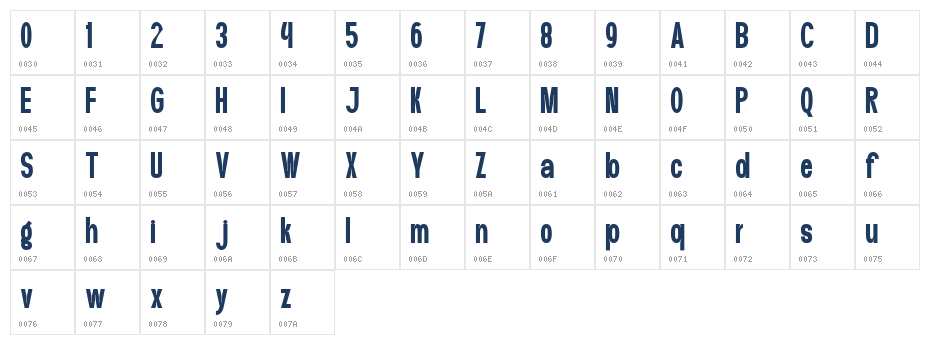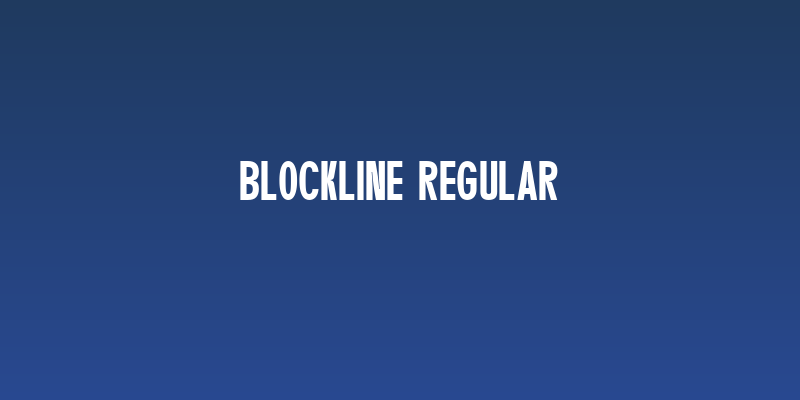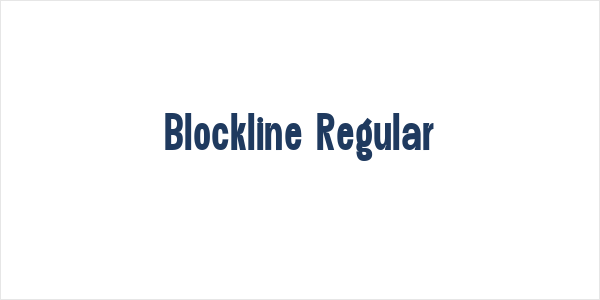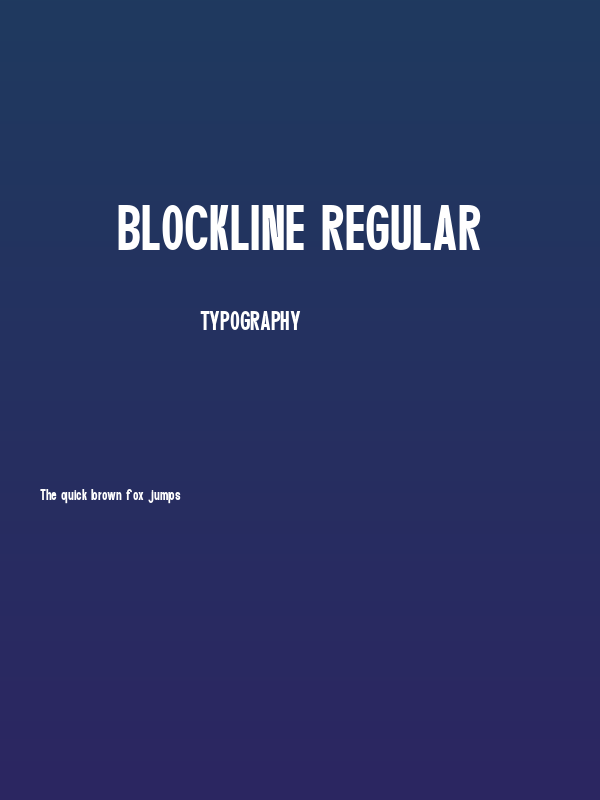
Blockline Regular Font
Blockline Regular Description
Bold, geometric sans-serif font with uniform stroke width and modern appearance.
| Overall Style | Modern, Geometric |